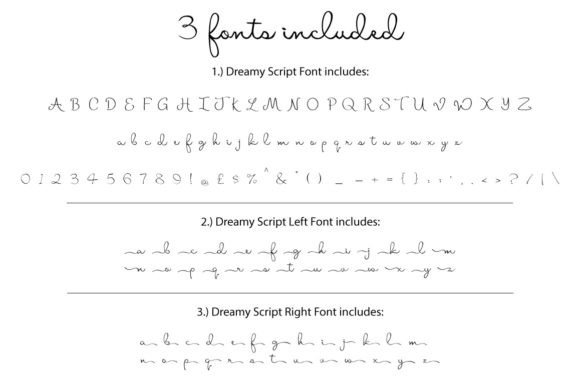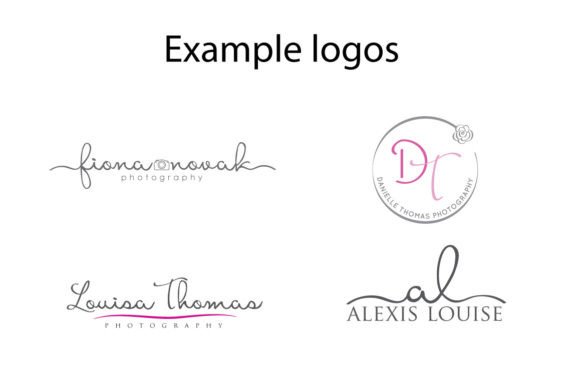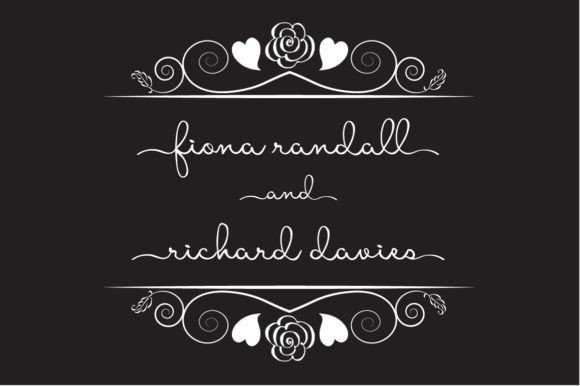
Dreamy Script Font
Dreamy Script is a hand drawn, elegant and flowing font. It can be used for a wide range of projects, such as logo designs, party & wedding invitations, t-shirt designs, signs, magazine design, greetings cards, poster design and much more!